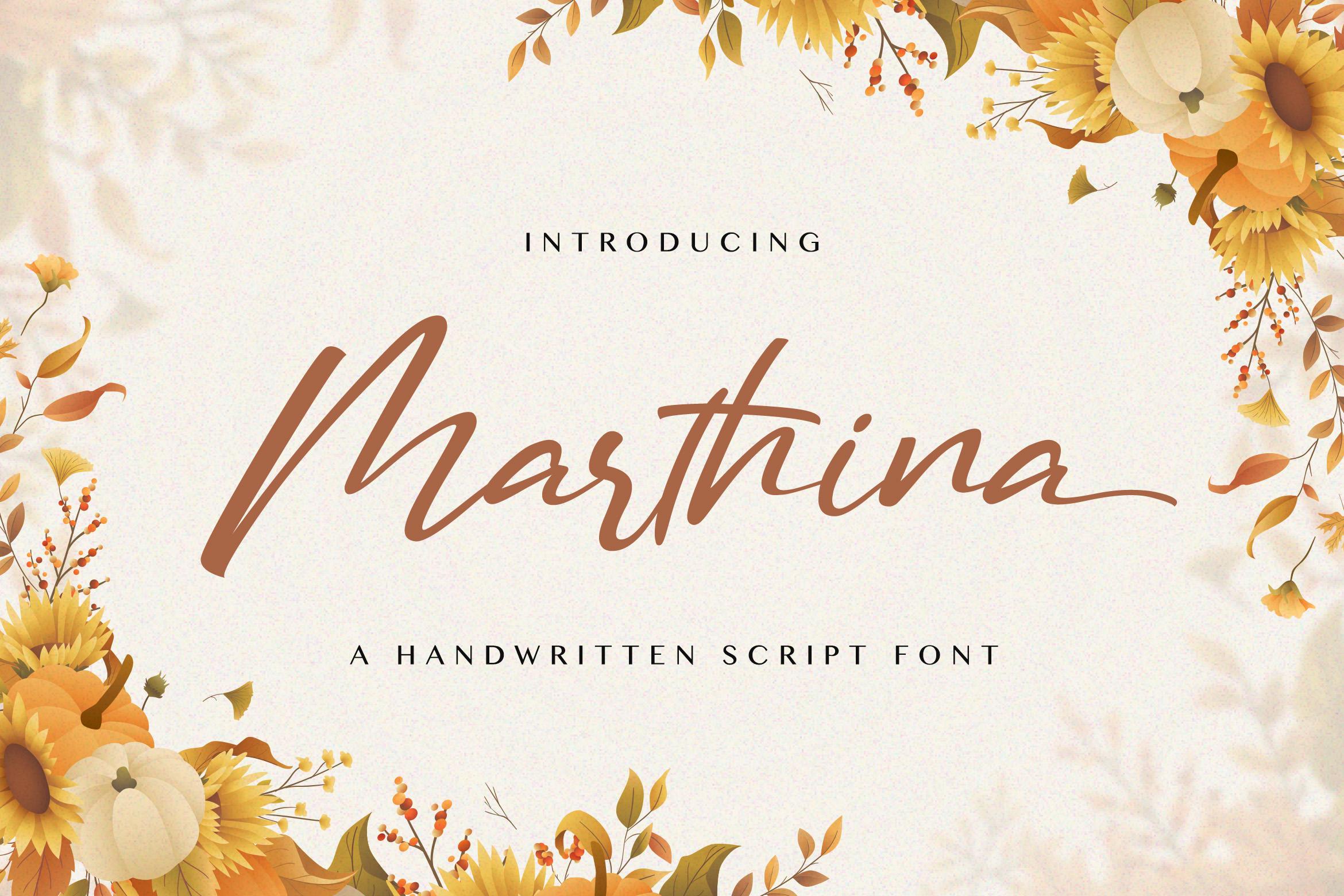
Marthina Font Description
Marthina is an exquisite handwritten font, masterfully designed to become a true favorite. It maintains its classy calligraphic influences while feeling contemporary and fresh. Fall in love with it and bring your projects to the highest levels!This font is PUA encoded which means you can access all of the glyphs and swashes with ease!